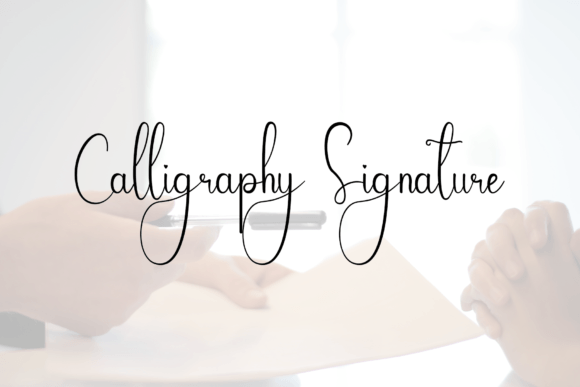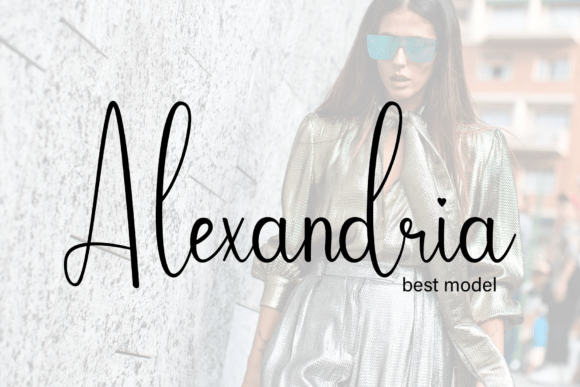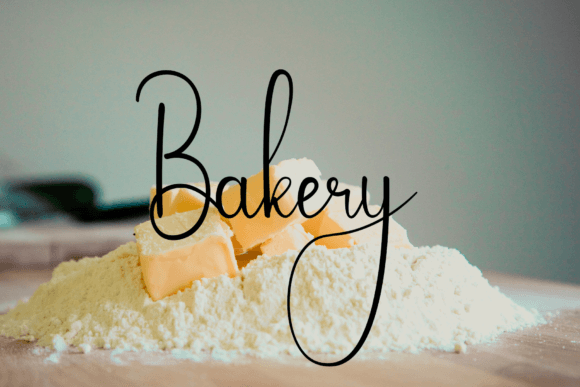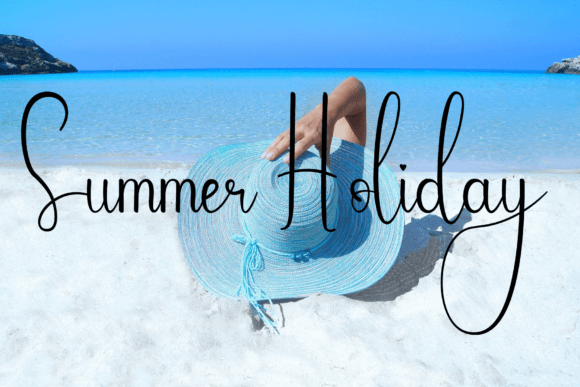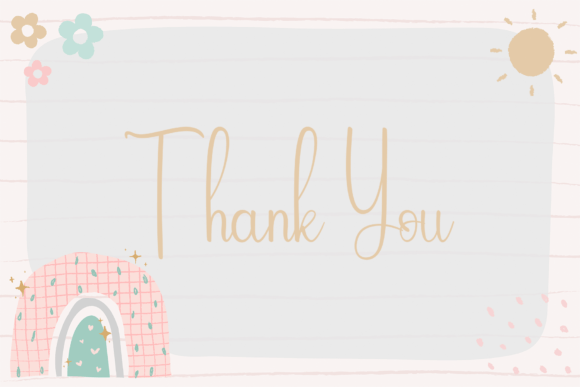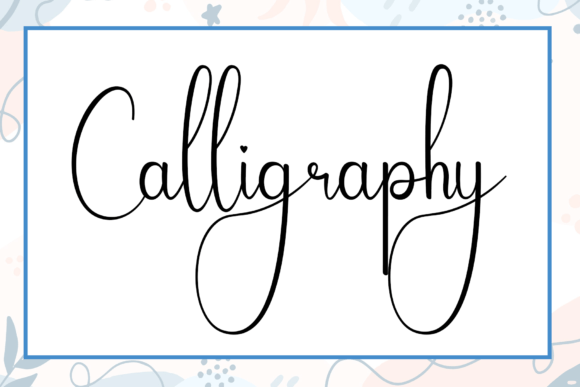
Introducing Calligraphy Font: Adding a Touch of Whimsy to Your Designs
Calligraphy is a beautiful and elegant art form that has been around for centuries. It involves the use of specialized tools and techniques to create decorative and flowing script. In the world of design, calligraphy has inspired a range of fonts that can add a touch of sophistication and elegance to any project. One such font is the Calligraphy Font, a sweet and friendly handwritten font that is perfect for adding a fun touch to your designs.
What is Calligraphy Font?
Calligraphy Font is a type of handwritten font that is designed to mimic the look and feel of traditional calligraphy. It is characterized by its flowing and cursive strokes, which give it a sense of movement and elegance. This font is perfect for designers and crafters who want to add a touch of whimsy and personality to their work.
Features of Calligraphy Font
Calligraphy Font is a cute and fun font that is ideal for a range of design projects. Some of its key features include:
- Handwritten look: Calligraphy Font has a warm and inviting handwritten look that is perfect for creating a personal touch.
- Flowing strokes: The font features flowing and cursive strokes that give it a sense of movement and elegance.
- Legible: Despite its decorative nature, Calligraphy Font is highly legible and easy to read.
- Versatile: This font can be used for a range of design projects, from wedding invitations and cards to posters and social media graphics.
Uses of Calligraphy Font
Calligraphy Font is a versatile font that can be used for a range of design projects. Some of the most popular uses of this font include:
- Wedding invitations: Calligraphy Font is perfect for creating beautiful and elegant wedding invitations that set the tone for the big day.
- Cards and stationery: This font is ideal for creating a range of cards and stationery, from birthday cards to thank-you notes.
- Posters and flyers: Calligraphy Font can add a touch of elegance and sophistication to posters and flyers.
- Social media graphics: This font is perfect for creating eye-catching social media graphics that stand out from the crowd.
Tips for Using Calligraphy Font
Here are some tips for using Calligraphy Font in your designs:
- Use it sparingly: While Calligraphy Font is beautiful, it can be overwhelming if used too much. Use it sparingly to add a touch of elegance to your designs.
- Pair it with other fonts: Calligraphy Font pairs well with other fonts, such as sans-serif fonts. Experiment with different font combinations to find the perfect look.
- Adjust the size: Calligraphy Font can be highly legible even at small sizes, but it can also be used at larger sizes to create a dramatic effect.
Calligraphy Font is a beautiful and elegant font that is perfect for adding a touch of whimsy and personality to your designs. With its flowing and cursive strokes, this font is ideal for a range of design projects, from wedding invitations and cards to posters and social media graphics. Whether you’re a designer or a crafter, Calligraphy Font is a great addition to your font collection.
Calligraphy Font is a beautiful and elegant font that is perfect for adding a touch of whimsy and personality to your designs. With its flowing and cursive strokes, this font is ideal for a range of design projects. Whether you’re a designer or a crafter, Calligraphy Font is a great addition to your font collection. So why not give it a try and see how it can elevate your designs?